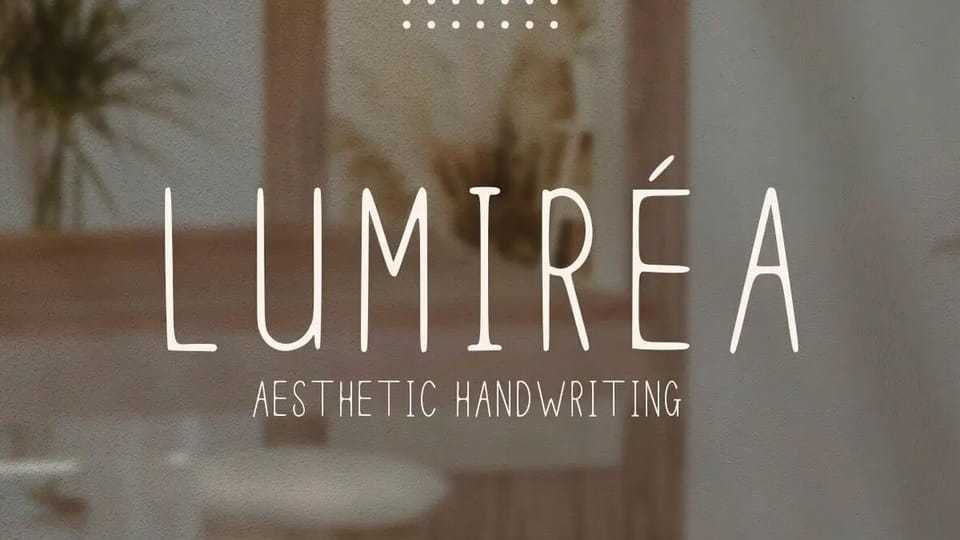
Download Lumiéra font, a captivating modern aesthetic handwriting typeface that beautifully merges simplicity with artistic elegance. This versatile typeface is designed to elevate your creative projects.